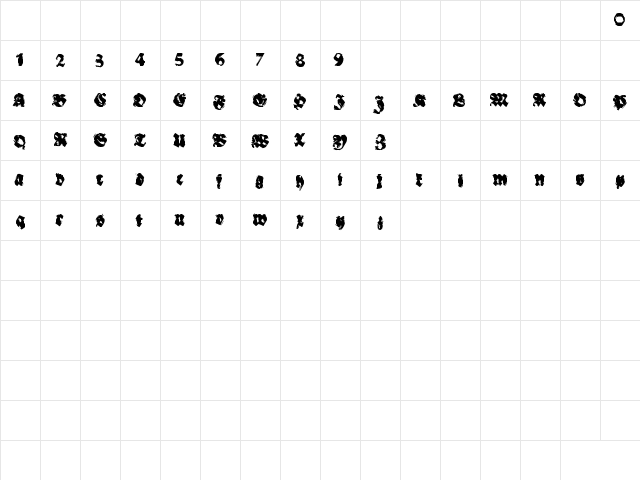
Fundamentalist Regular
Design Context for Fundamentalist Typeface
Fundamentalist has an approachable, lighthearted character — its loose, expressive forms are well-suited to children's content, casual branding, and fun-first design.
Font Pairing: Pairs well with a rounded or humanist sans for body copy, maintaining the friendly tone without relying on Fundamentalist to carry extended reading.
Pro Tip: Avoid using Fundamentalist for long passages of text — it works best for headlines, labels, and short calls to action.